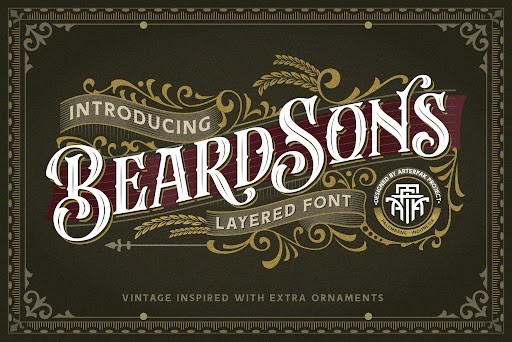
60 Best Blackletter Fonts for Bold Typography in 2026
Blackletter typography has completely shaken off its dusty, medieval reputation. Today, it is everywhere—from streetwear brands and tattoo studios to high-end editorial magazines. If you are looking to give your designs an edgy, dramatic, or vintage aesthetic in 2026, finding the right gothic typeface is crucial. With so many options out there, scrolling through font libraries can feel endless. That is why I have done the heavy lifting for you. Below, you will find a handpicked collection of 60 standout blackletter fonts that blend historical charm with modern readability, perfect for making your next project grab serious attention.
1. Beardsons Blackletter font
Beardsons Blackletter font
The Beardsons font by Arterfak Project is a masterclass in modern blackletter typography, seamlessly blending vintage aesthetics with contemporary digital precision. As we navigate the design trends of 2026, this typeface stands out for its exceptional readability—a trait often sacrificed in traditional gothic scripts. The intricate ornamental details on the capitals provide a regal, authoritative flair, while the lowercase letters maintain a clean, rhythmic structure that works beautifully across both digital and print mediums. Whether you are designing craft beer labels, vintage-inspired apparel, or heavy metal album art, Beardsons delivers a robust and authentic character that instantly elevates your project.
From a practical standpoint, incorporating Beardsons into your workflow is incredibly satisfying. The font comes equipped with a comprehensive set of alternate characters, ligatures, and swashes, allowing designers to create highly customized logotypes and headlines with ease. I highly recommend pairing it with a simple geometric sans-serif to create a striking typographic contrast. When setting this typeface, be sure to give your tracking a bit of breathing room; allowing the intricate serifs and sharp angles to stand independently will ensure your text remains legible and impactful. With full commercial licensing included, it is a versatile powerhouse for any serious designer’s typographic arsenal.
2. Stanford Breath Blackletter font
Stanford Breath Blackletter font
Stanford Breath is a stunningly aggressive yet refined take on the classic blackletter style, offering a bold visual punch that feels incredibly relevant in 2026. What makes this typeface truly special is its sharp, almost fractured letterforms that evoke the intensity of traditional textura scripts while maintaining a sleek, modern edge. It perfectly captures that rebellious, underground spirit, making it an absolute go-to for streetwear brands, tattoo parlors, and edgy editorial layouts. The severe angles and dramatic thick-to-thin strokes create a dense, highly textured block of text that immediately commands the viewer’s attention and refuses to let go.
Working with Stanford Breath requires a confident approach to layout design. Because the letterforms are so dense and complex, this font shines brightest when used at larger display sizes—think massive posters, bold hero headers, and statement merchandise. I suggest keeping your color palette limited when utilizing this font; a stark monochrome or a high-contrast two-tone scheme will allow the jagged, intricate typography to serve as the primary focal point of your composition. It also pairs exceptionally well with brutalist design elements. Always remember to tighten your leading slightly if stacking words, as the verticality of the strokes creates a beautiful, unified texture when placed close together.
3. Rebel Frisco Display font
Rebel Frisco Display font
While exploring the darker, more intricate side of typography, the Rebel Frisco Display font offers a fascinating urban counterpoint to traditional blackletter styles. This graffiti-inspired Y2K typeface channels the raw, unfiltered energy of street art, merging nostalgic turn-of-the-millennium aesthetics with a rebellious modern edge. In the current design landscape of 2026, where early 2000s brutalism and anti-design continue to dominate, Rebel Frisco provides an authentic, hand-tagged feel that feels both chaotic and meticulously crafted. The overlapping strokes, exaggerated curves, and gritty textures make it an instant standout for underground music promotions, extreme sports apparel, and bold social media campaigns.
To get the absolute best out of Rebel Frisco, you need to lean into its chaotic nature. Unlike highly structured blackletter fonts, this typeface thrives in dynamic, unconventional layouts where text is allowed to break the grid. I highly recommend experimenting with layer blending modes, neon gradients, and offset drop shadows to amplify its Y2K graffiti roots. It serves as a fantastic secondary display font to contrast against a rigid gothic headline, creating a rich tension between historical tradition and modern rebellion. Just be mindful of legibility; keep your copy short and punchy, allowing the expressive letterforms to act as illustrative elements rather than just readable text.
4. Tattoo Studio Blackletter font
Tattoo Studio Blackletter font
The Tattoo Studio font by Tabriiz is a brilliant homage to the storied tradition of chicano and traditional tattoo lettering, heavily rooted in blackletter and gothic typographic principles. This typeface exudes an undeniable swagger, characterized by its elaborate swashes, razor-sharp terminals, and an impeccable flow that mimics the steady hand of a master tattoo artist. As we see a massive resurgence of alternative typography in 2026, this font is an indispensable tool for designers looking to inject a sense of raw, authentic street culture into their work. It is practically tailor-made for barbershop branding, motorcycle club insignias, custom apparel, and, naturally, tattoo parlor identities.
When designing with Tattoo Studio, the magic lies in utilizing its extensive open-type features. The font is packed with breathtaking contextual alternates and decorative flourishes that allow you to frame your text beautifully, giving it a custom-drawn, bespoke appearance. For practical application, I recommend using this font for primary logotypes or striking sub-headers, but avoid using it for body copy where its ornate details could overwhelm the reader. Setting the text on a subtle curve or arch can deeply enhance the tattoo flash aesthetic. Pair it with a muted, vintage color palette and slightly distressed textures to achieve a timeless, lived-in brand identity.
While obviously perfect for October-themed campaigns, haunted house branding, and party invitations, Midnight Halloween’s utility extends far beyond a single holiday. It is remarkably effective for alternative lifestyle branding, gothic fashion editorials, and edgy poster designs. When utilizing this font, scale is your best friend; let it dominate the composition at large point sizes to fully showcase its intricate, thorny details. To prevent visual clutter, keep your supporting typography incredibly simple. Combining this dramatic blackletter with stark, contrasting colors like neon green, deep purple, or blood red against a dark background will yield breathtaking, high-contrast results.